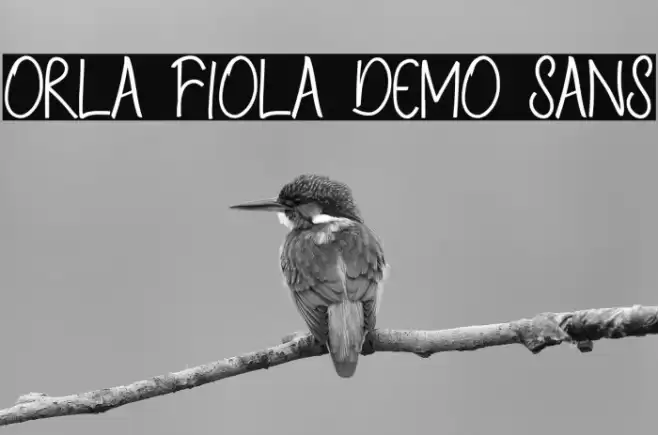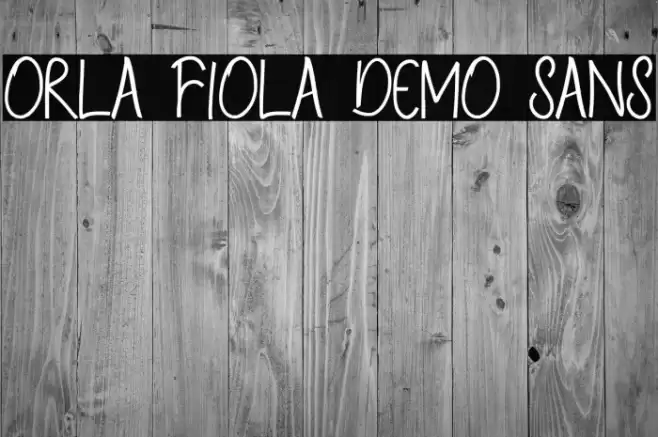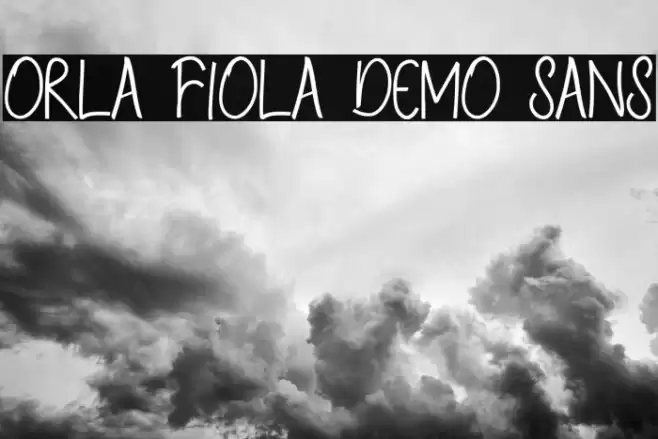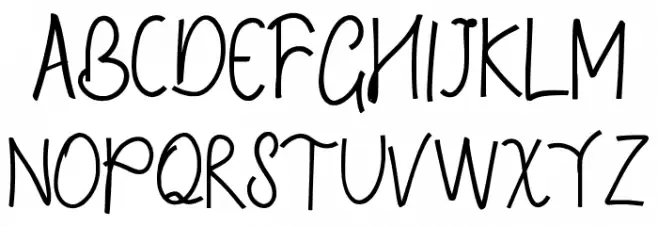
Orla Fiola Demo Sans Font
Orla Fiola Demo Sans Description
This font features a playful and whimsical design with a handwritten style. The letters are characterized by their flowing curves and slightly irregular shapes, giving them a casual and friendly appearance. The strokes are consistent in width, providing a uniform look across all characters. The uppercase letters are bold and prominent, while the lowercase letters maintain a similar style with a slightly smaller size. The numbers and special characters follow the same design principles, ensuring a cohesive look throughout. This font is ideal for projects that require a personal touch or a creative flair.
A playful, handwritten font with consistent strokes and a whimsical style from Regular fonts.
- Proposed Projects: Ideal for greeting cards, invitations, children's books, and creative branding projects.
- Use Case: Headlines, Logos, Creative projects